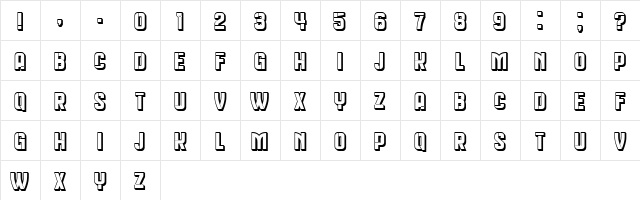
Queen Dea Hollow Regular
Design Context for Queen Dea Hollow
Queen Dea Hollow is a composed and adaptable typeface that performs quietly and consistently across a wide range of design contexts.